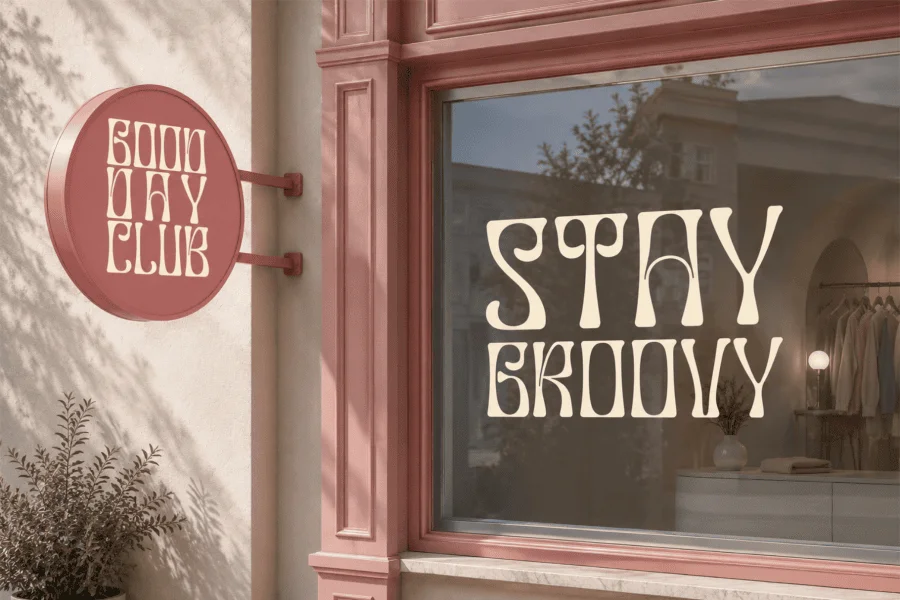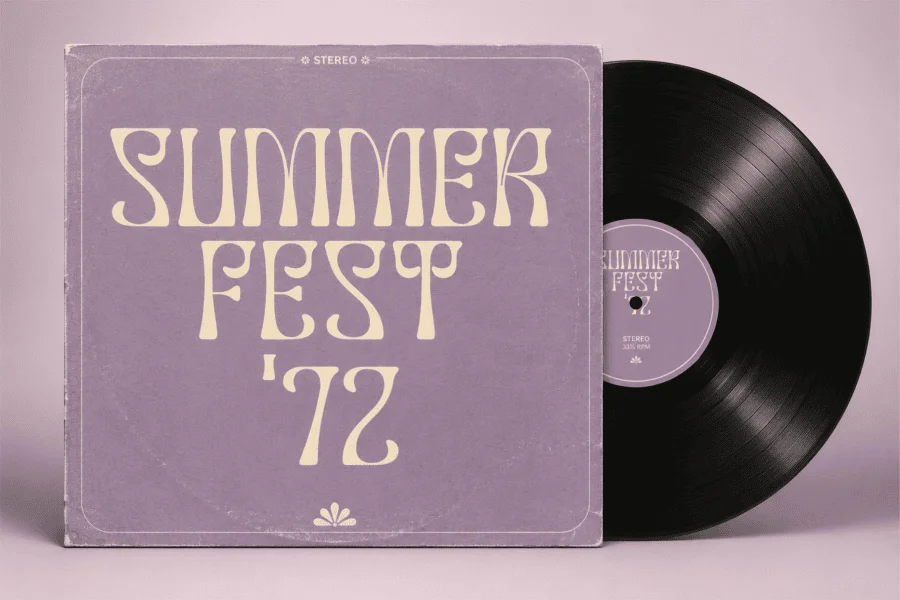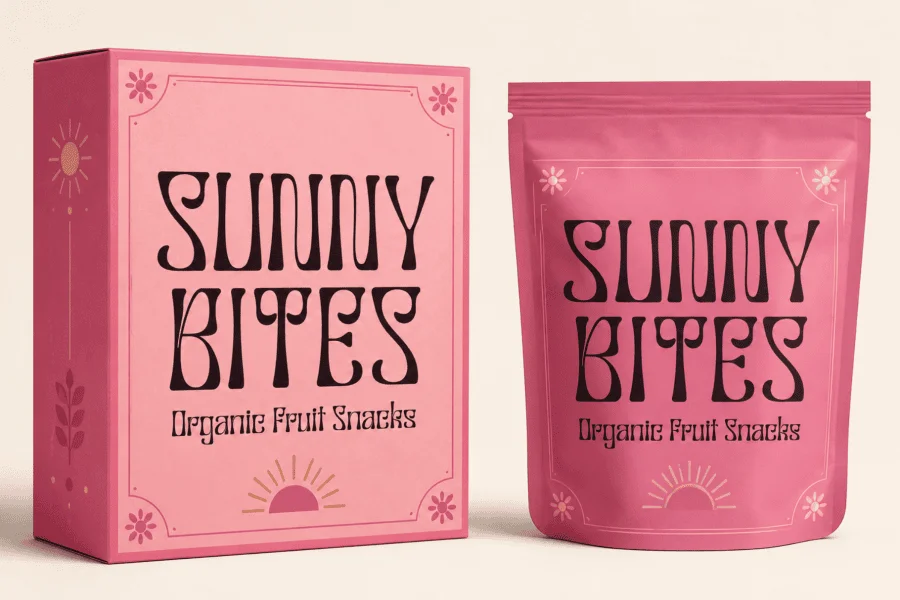
A playful 70s-inspired display serif with bold curves, decorative rhythm, and flower power charm.
Musaic is a groovy retro display serif inspired by the joyful spirit of 70s flower power design. With bold curves, expressive letterforms, stylish alternates, and decorative ligatures, it is made for memorable logos, packaging, posters, merchandise, and standout visual branding.